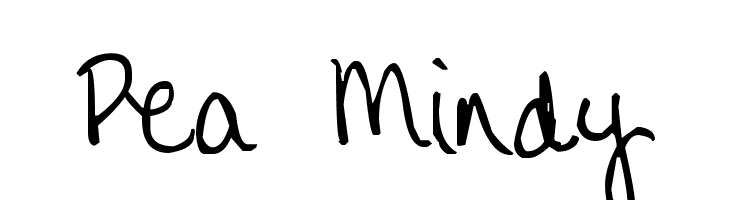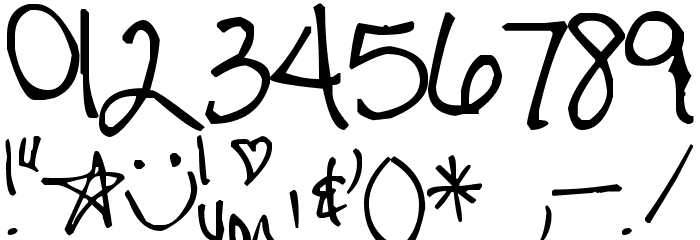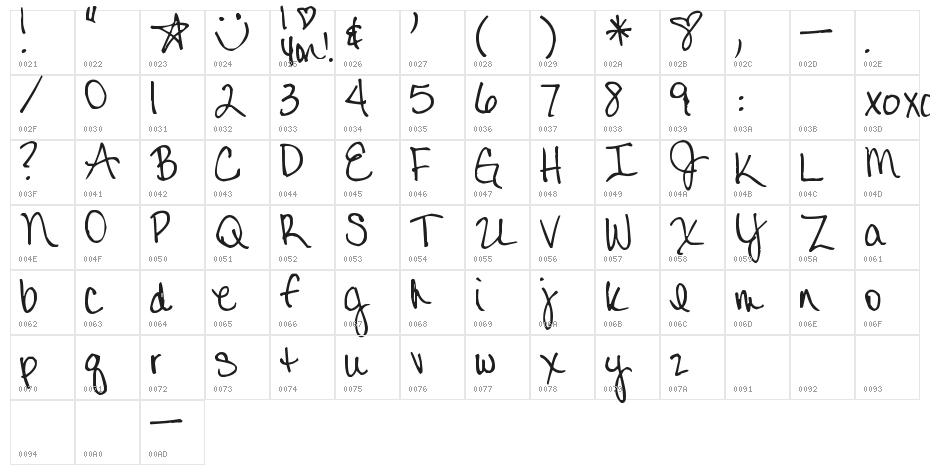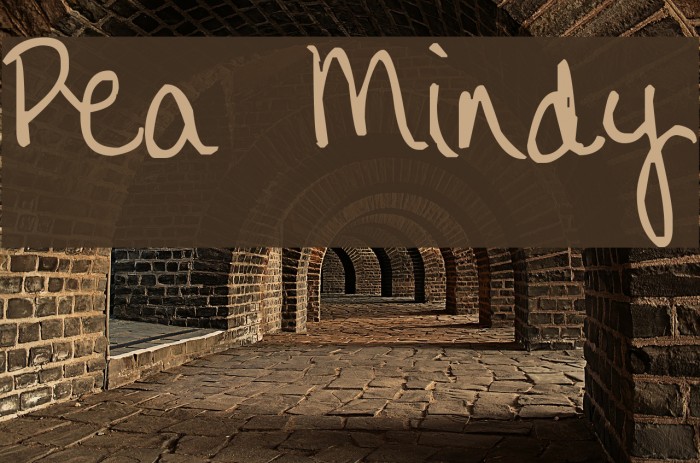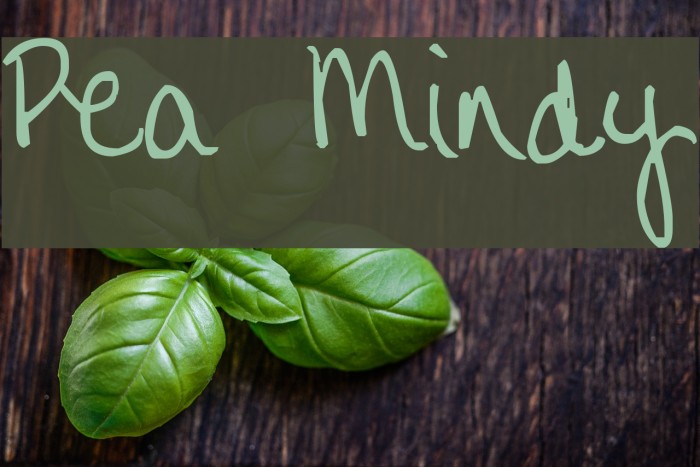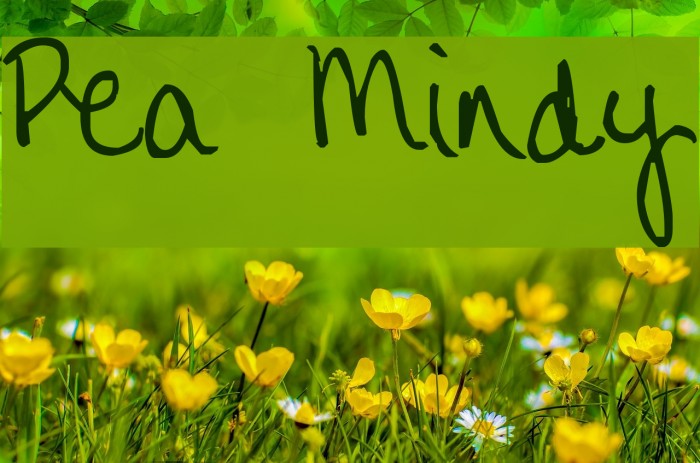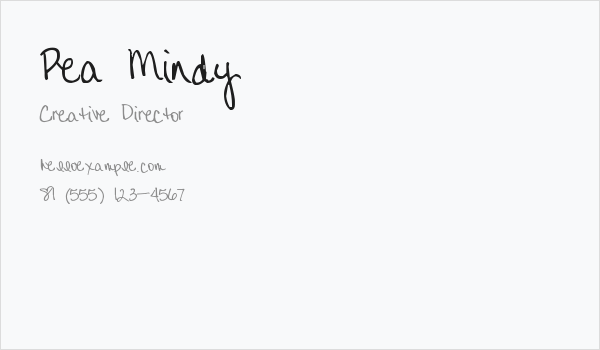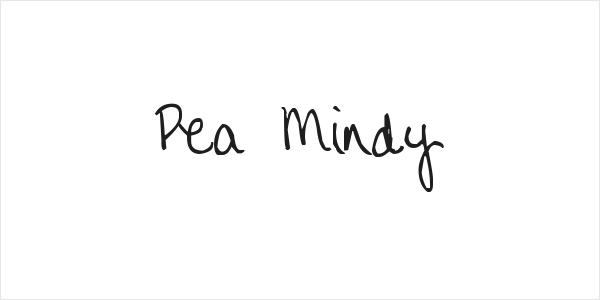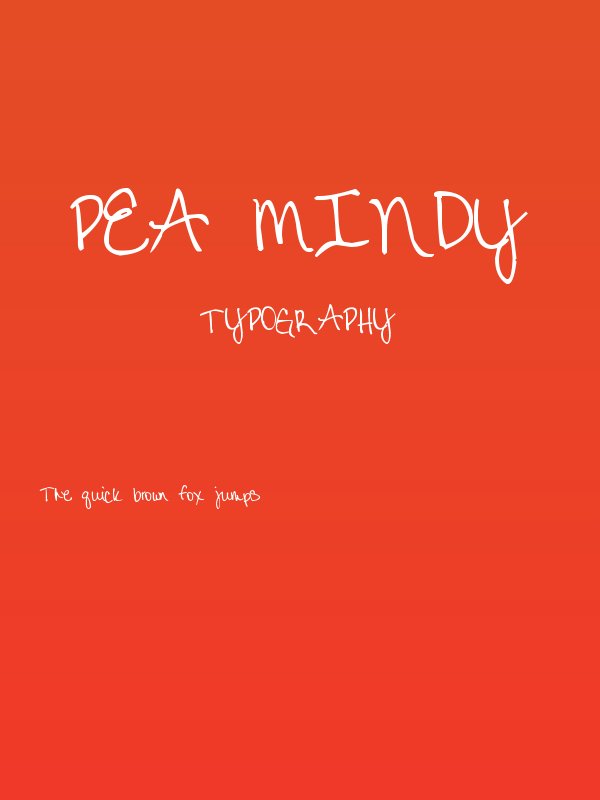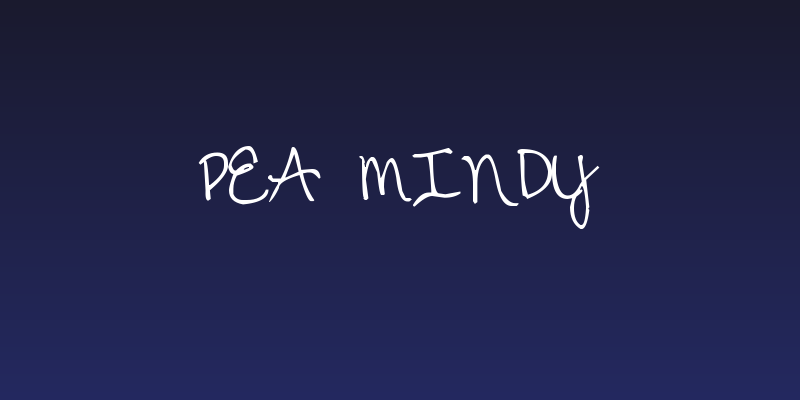
Pea Mindy Font
Pea Mindy Description
This font features a playful and casual handwritten style, characterized by its loose and flowing strokes. The uppercase letters maintain a consistent height, while the lowercase letters exhibit a more varied baseline, adding to the informal and whimsical feel. The numerals are bold and slightly irregular, complementing the overall aesthetic. Special characters, including symbols and punctuation, are creatively integrated, enhancing the font's expressive nature. The font's charm lies in its imperfect, organic appearance, making it ideal for projects that require a personal touch.
| Use Case | Headlines, Personal projects, Creative branding |
| Proposed Projects | Great for greeting cards, personal blogs, children's books, and creative branding. |